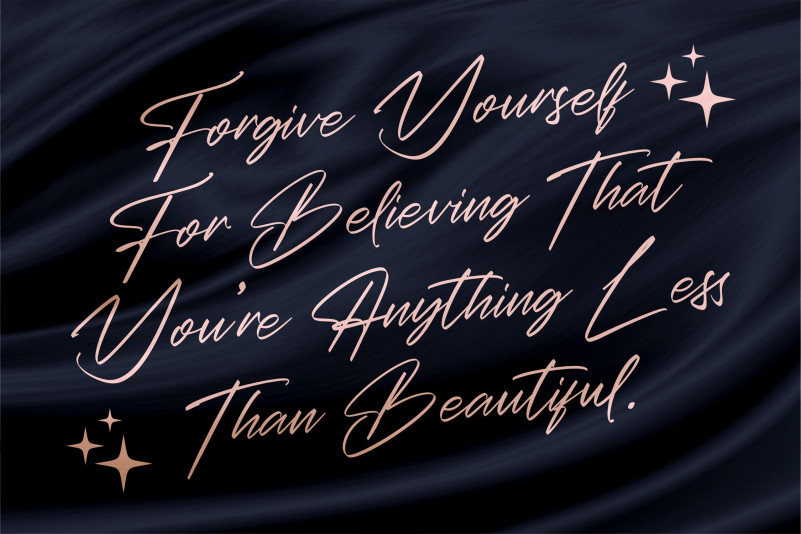
Christopher Signature Font
Christopher Signature Script Font
This is a premium signature font, suitable for any projects such as: logos, branding projects, homeware designs, product packaging, mugs, quotes, posters, shopping bags, t-shirts, book covers, name card, invitation cards, greeting cards, label, photography, watermark, special events, and all your other luxury projects that need a premium signature taste.